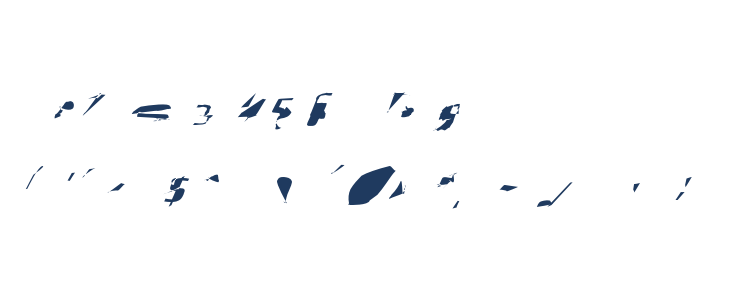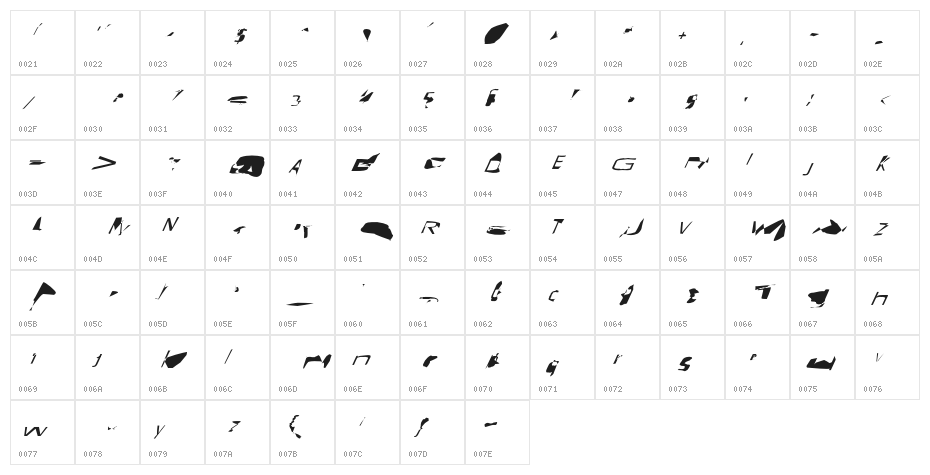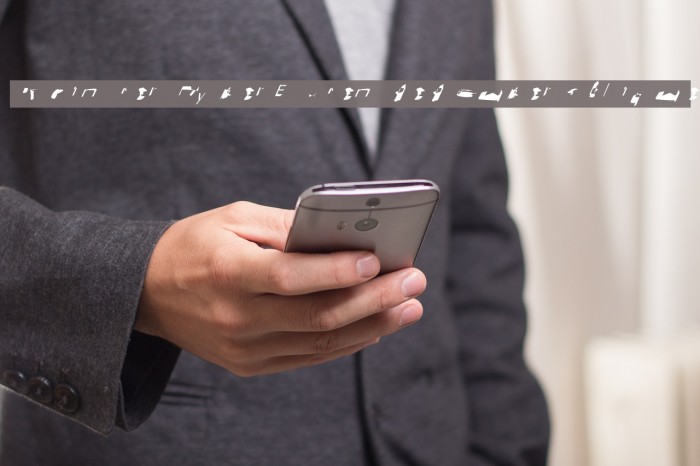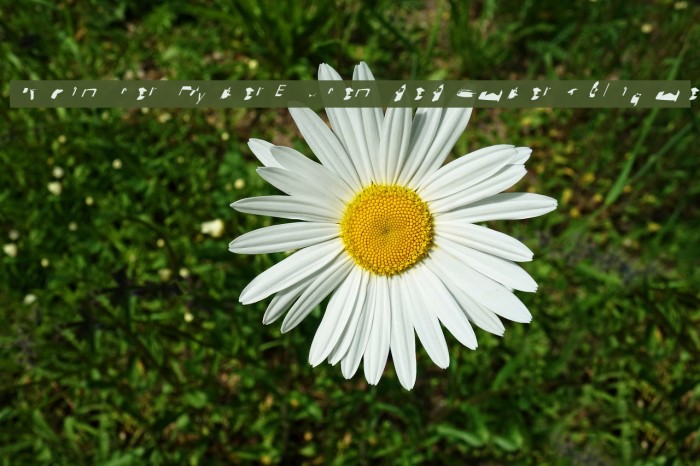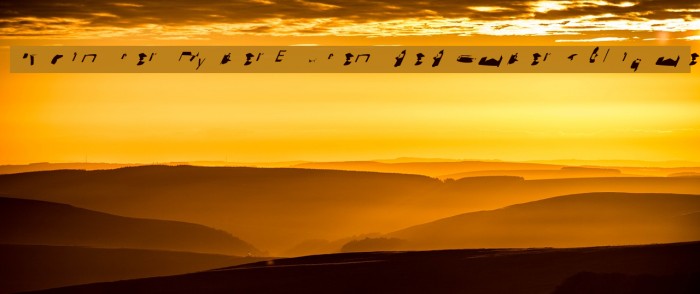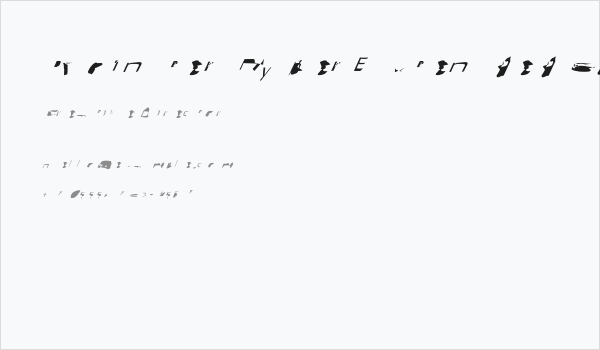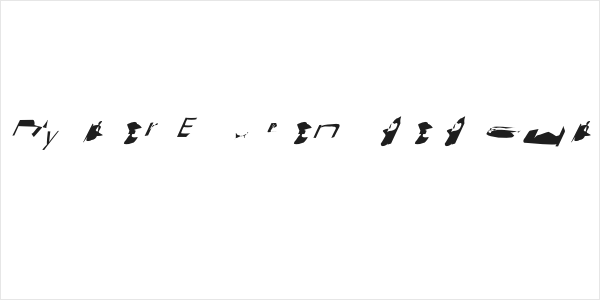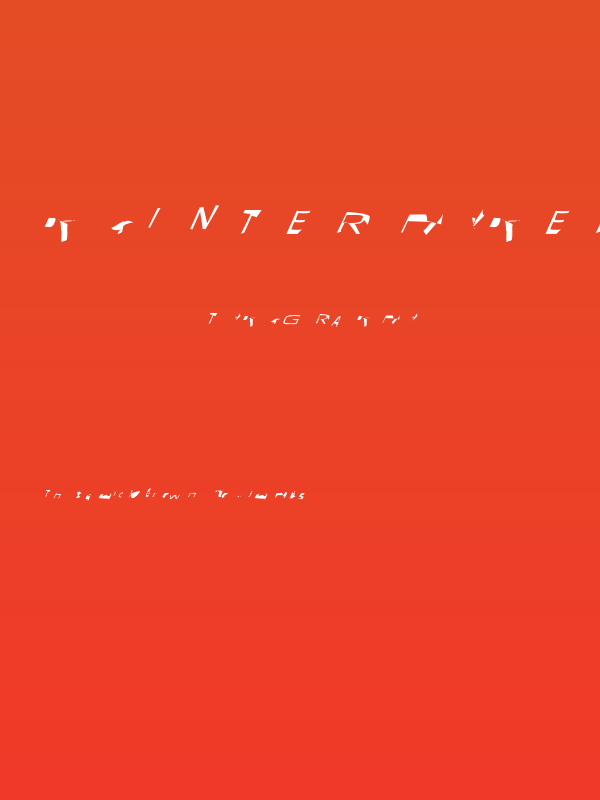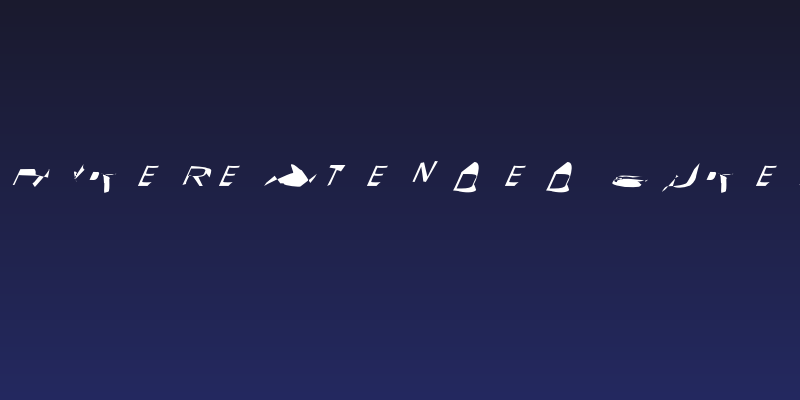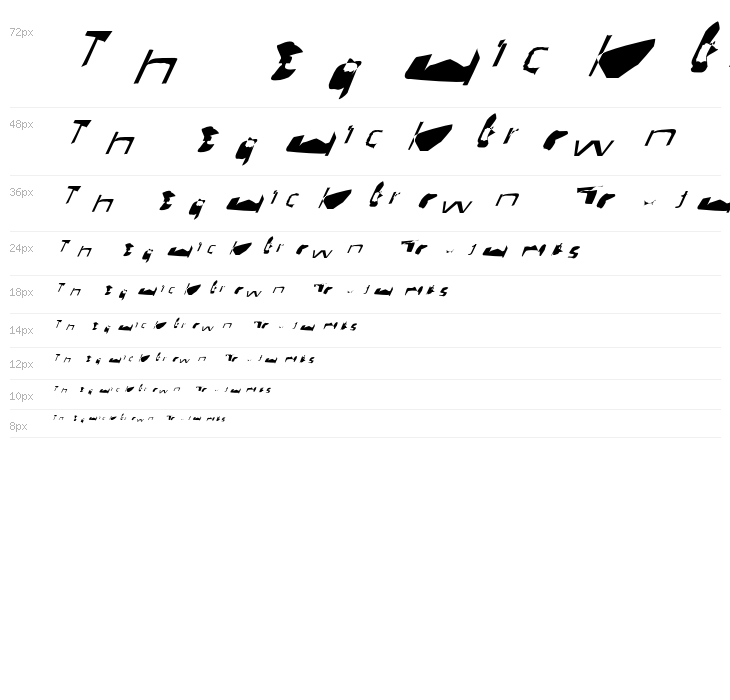
Pointer HyperExtended SuperOblique Font
Pointer HyperExtended SuperOblique Description
This font exhibits a highly stylized and abstract design, characterized by its fragmented and angular letterforms. The characters appear to be in motion, with a dynamic and chaotic energy that suggests speed and modernity. The strokes are irregular, with varying thicknesses that create a sense of depth and movement. This font is not easily legible at first glance, making it more suitable for artistic or decorative purposes rather than for body text. Its unique style makes it stand out, offering a futuristic and edgy aesthetic.
| Proposed Projects | Ideal for use in graphic design projects that require a bold, modern look, such as album covers, posters, or branding for tech companies. |